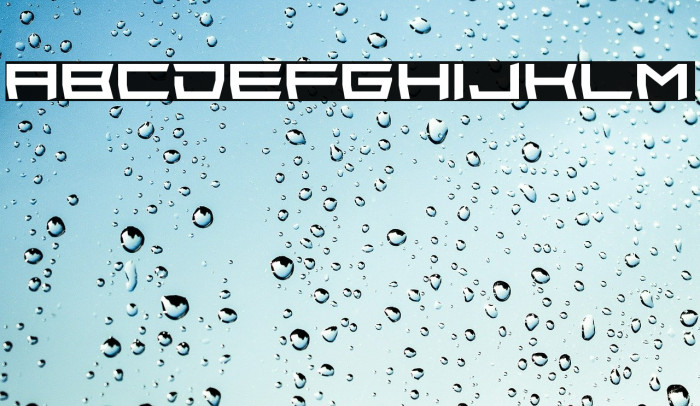
Wondertribute Font
This font features a bold, geometric style with sharp angles and a futuristic aesthetic. The uppercase and lowercase letters maintain a consistent height, creating a uniform appearance. The characters are designed with a unique angular cut, giving them a distinct, edgy look. The numbers follow the same design principles, ensuring consistency across all characters. Special characters are included, maintaining the same bold and angular style. This font is ideal for projects that require a modern and tech-inspired feel.
- Proposed Projects: Ideal for tech-related branding, video game titles, sci-fi movie posters, and modern digital interfaces.
- Overall Style: Futuristic